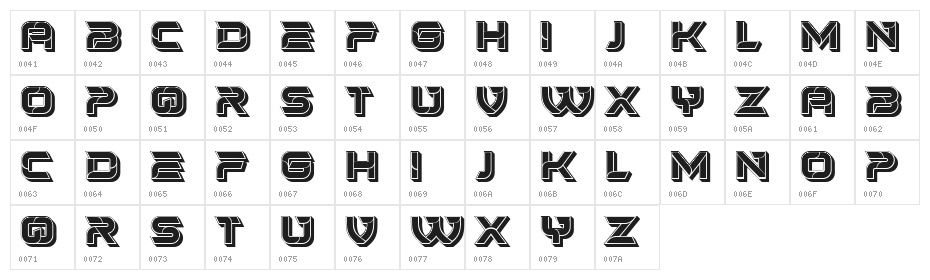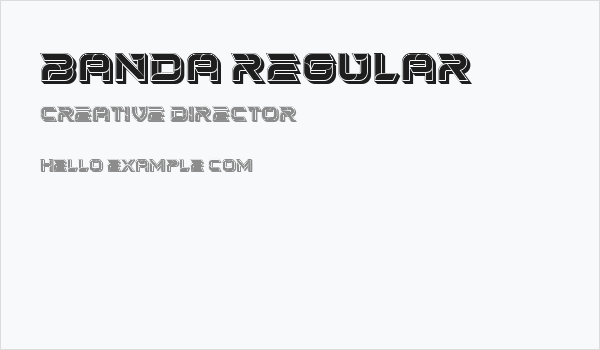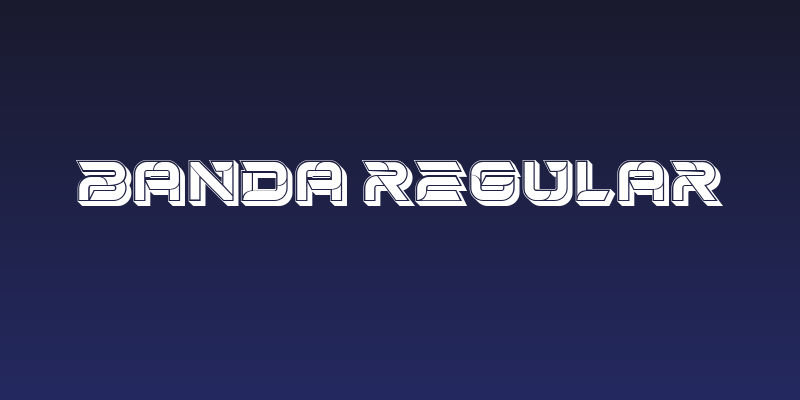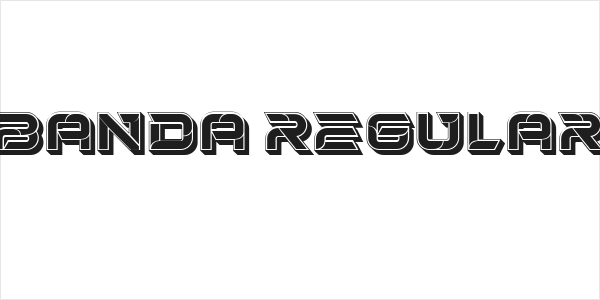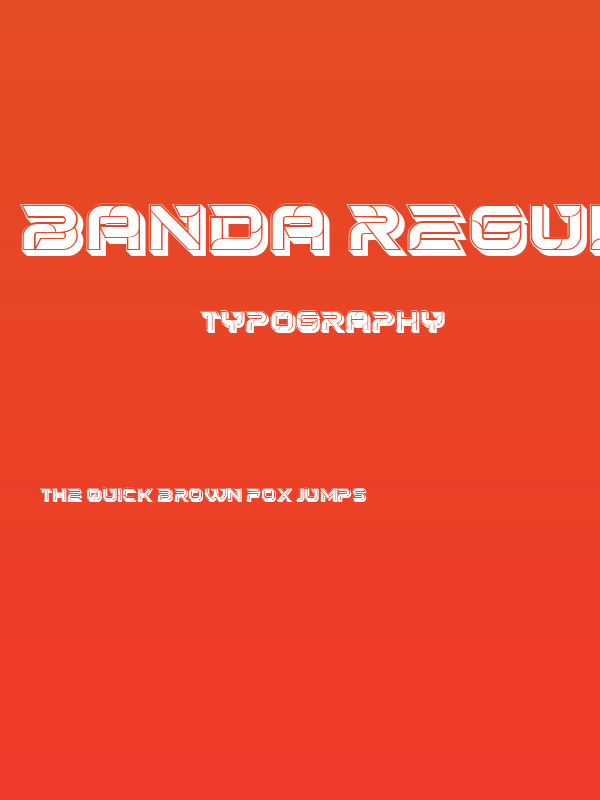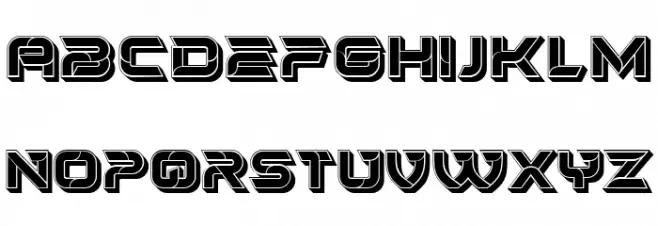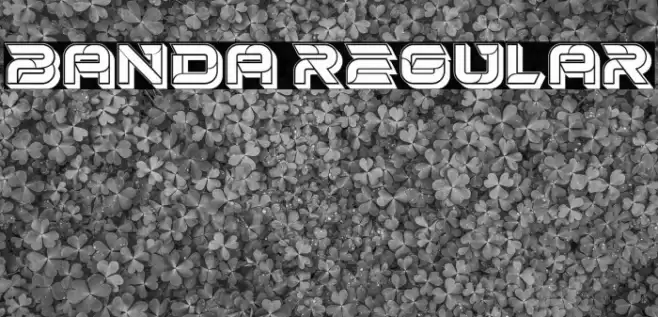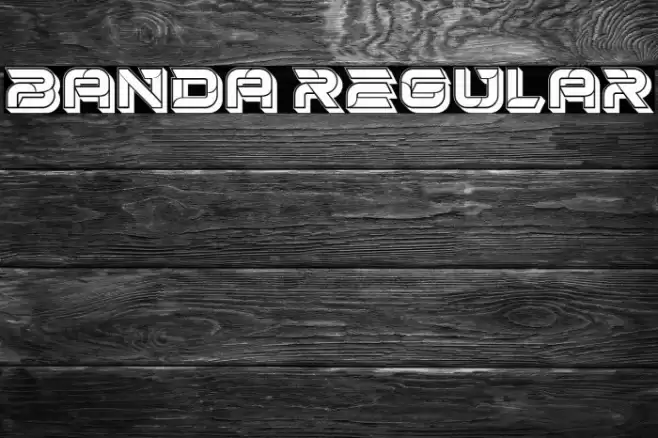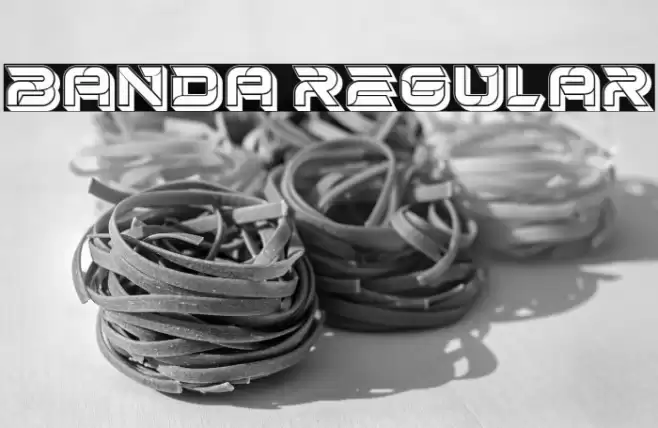
Banda Regular Font
Banda Regular Description
This font features a bold, geometric design with a futuristic aesthetic. The characters are constructed with sharp angles and a three-dimensional effect, giving them a dynamic and modern appearance. The use of thick lines and contrasting strokes creates a sense of depth and movement. The uppercase letters are particularly striking, with a consistent width and a unique style that makes them stand out. The font's design is suitable for eye-catching headlines and display purposes, where a strong visual impact is desired.
| Proposed Projects | Ideal for branding, posters, album covers, and any project requiring a modern, impactful look. |